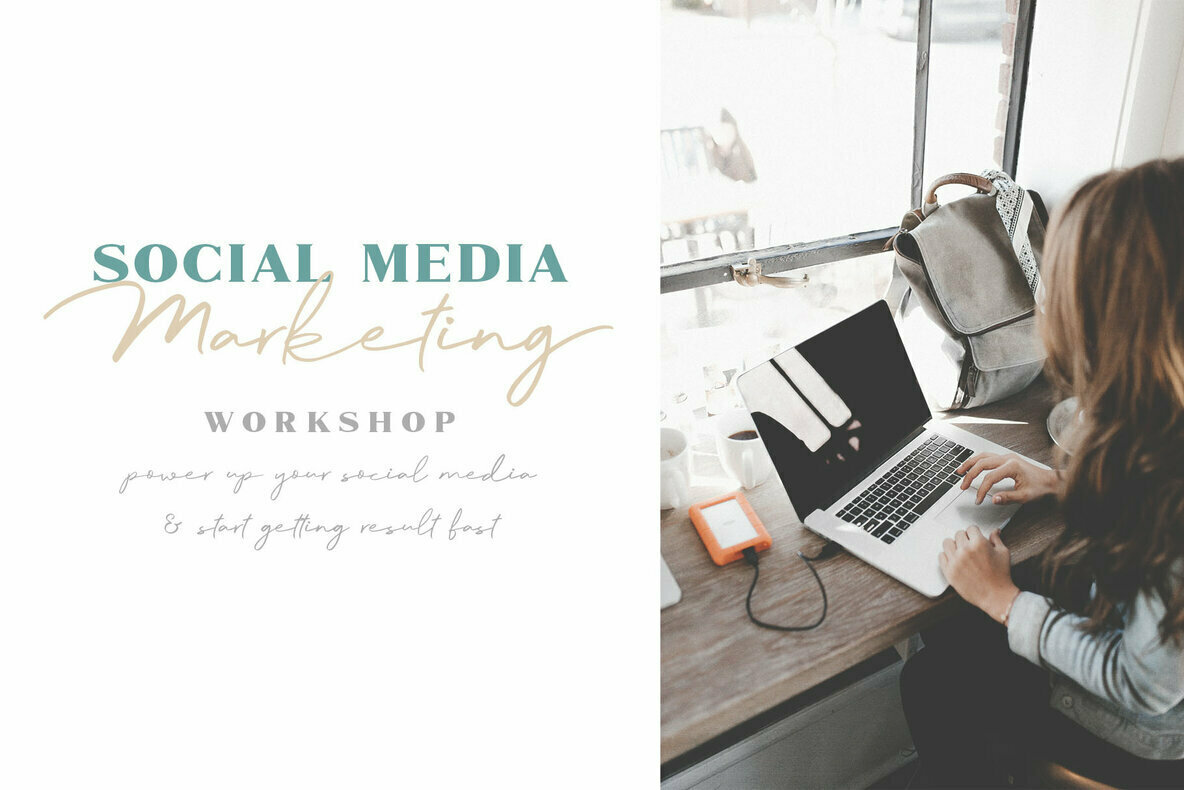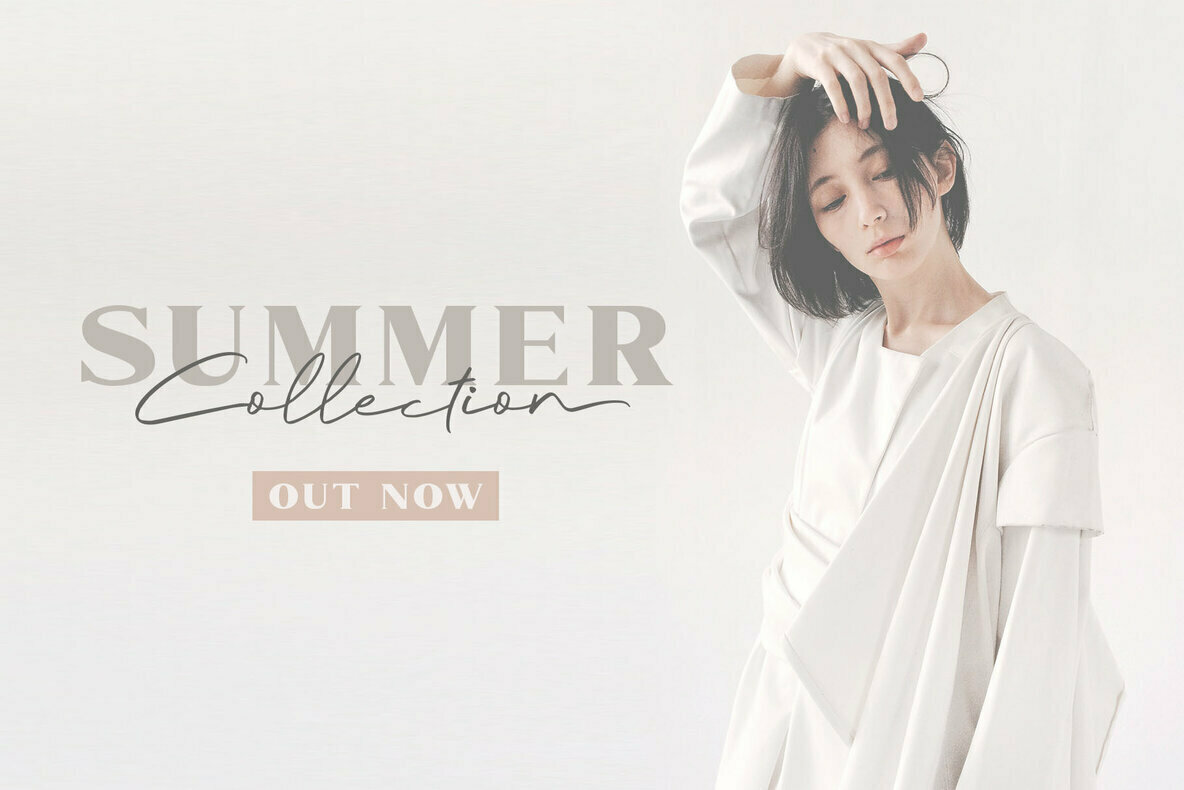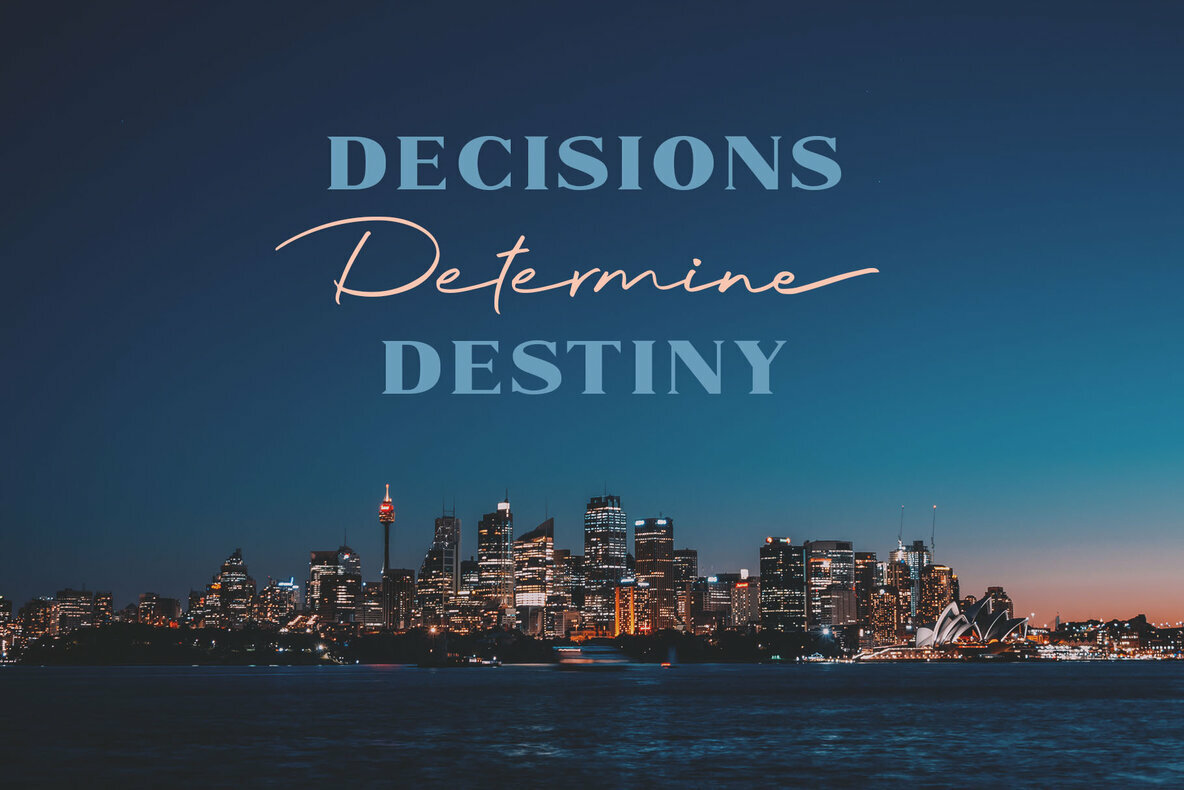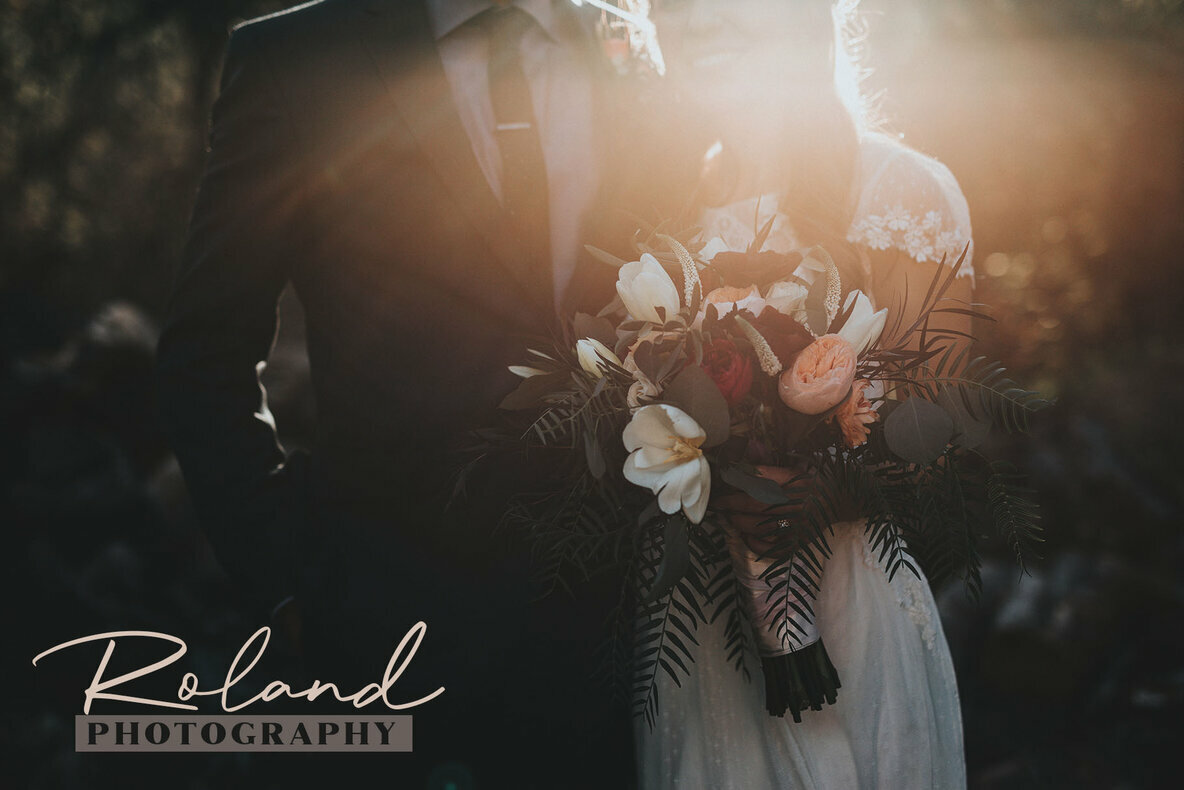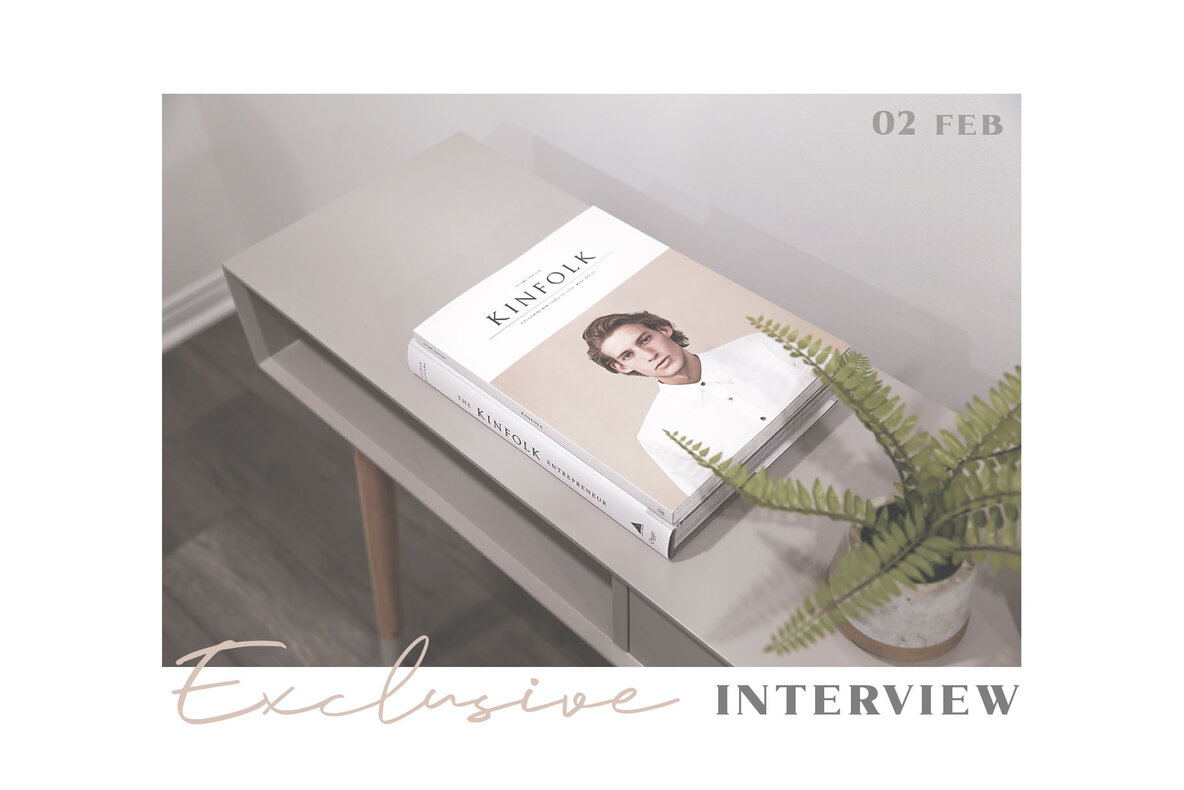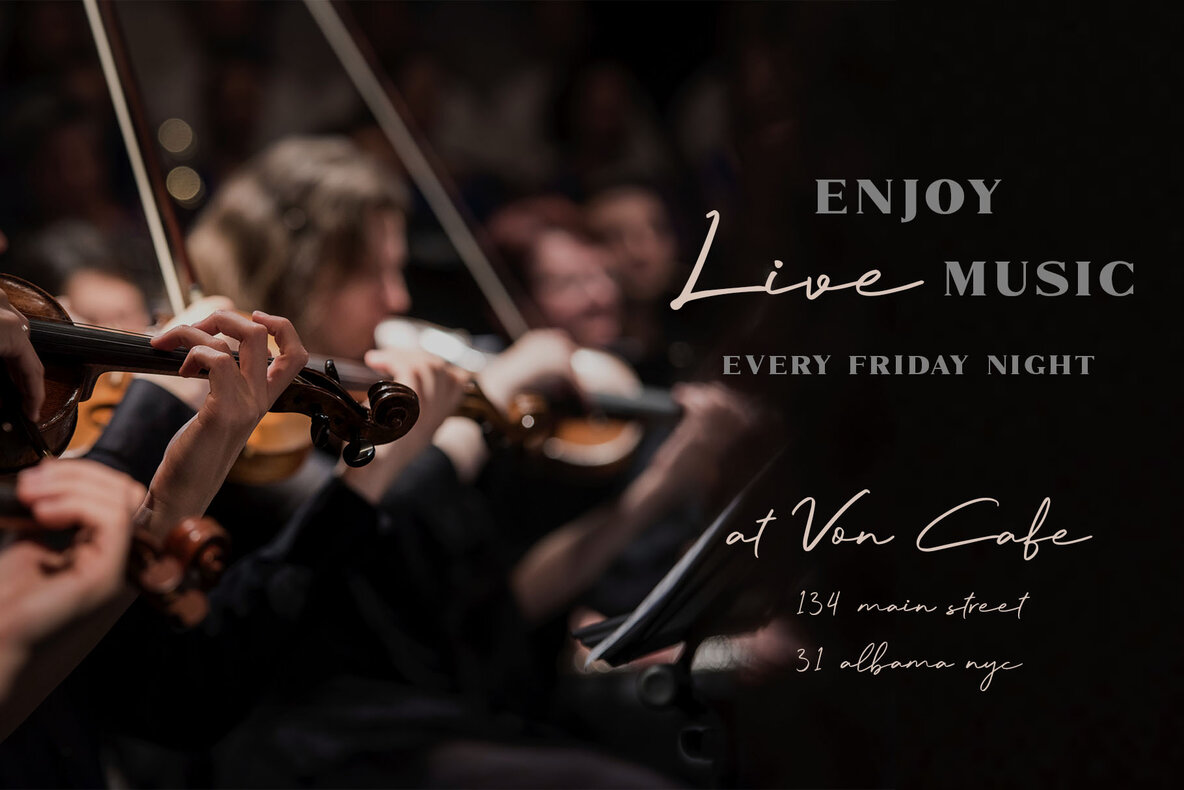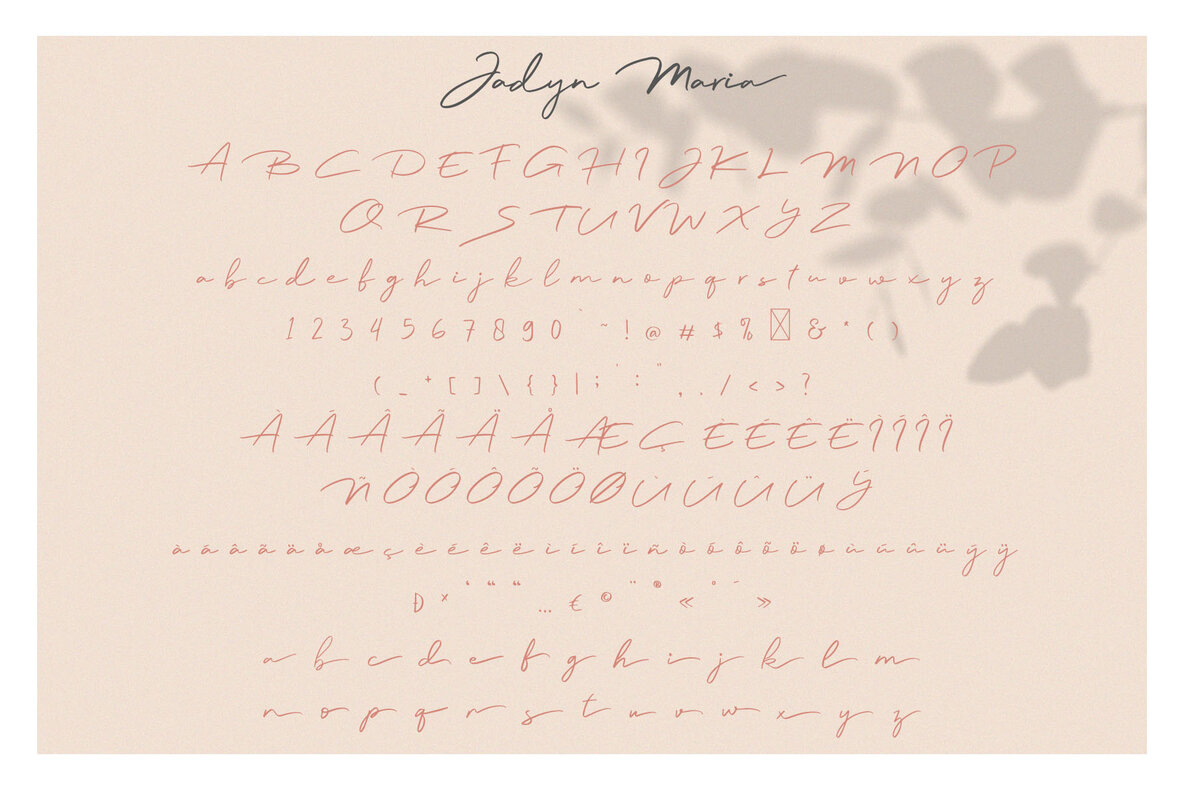
Jadyn Maria Font
Jadyn Maria, crafted by Craft Supply Co., epitomizes the elegance of handwritten script fonts. Designed to mimic the authentic strokes of personal handwriting, it offers an exquisite option for fashion labels, e-commerce platforms, and wedding boutiques aiming to project an upscale and chic image. Whether used for a blog header or boutique branding, Jadyn Maria adds a touch of sophistication to any project, enhancing visual appeal. The font's versatility extends to various applications, from logos, greeting cards, and quotes to posters and design titles. Its compatibility with modern themes such as hand-drawn or watercolor designs makes it suitable for DIY projects and book titles, providing a trendy and polished finish.Jadyn Maria: A Luxurious Script for Upscale Designs